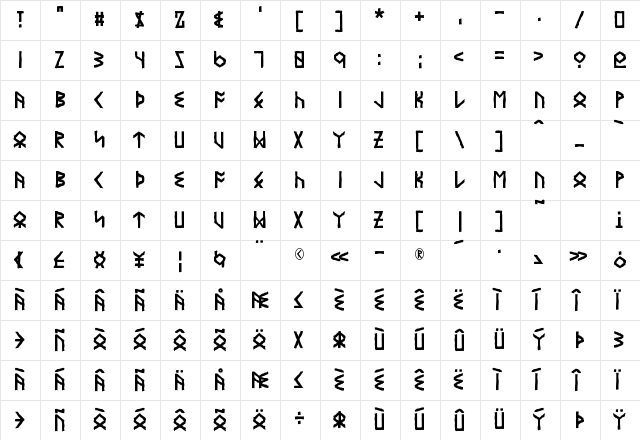
Eyvindr Regular Free Font
Eyvindr Regular
Foundry: Neale Davidson
Designer: Neale Davidson
Design Context for Eyvindr
Eyvindr is a composed and adaptable typeface that performs quietly and consistently across a wide range of design contexts.